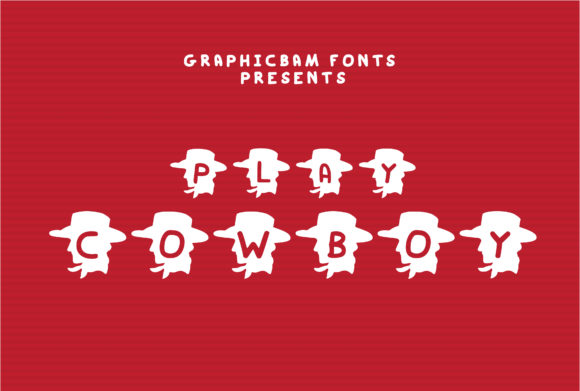
Introducing Play Cowboy Font - the most captivating and distinctive decorative font you'll ever encounter. Its unique design featuring a cowboy on each character adds a touch of wild west charm to any project, making it an instant favorite among designers.
Unleash your creativity and embark on an adventure with Play Cowboy Font. This remarkable font is not just a collection of letters and symbols; it's a gateway to a world of boundless imagination. Whether you're a seasoned graphic designer or just starting, Play Cowboy Font will ignite your passion and transport you to a realm of endless possibilities.
With Play Cowboy Font in your arsenal, you'll be able to craft designs that stand out from the herd. Its playful and charming style is perfect for creating logos, posters, social media graphics, invitations, and anything else you can imagine. Let your creativity roam free and watch as Play Cowboy Font transforms your ideas into captivating visual masterpieces.
Don't settle for ordinary fonts that blend into the background. Embrace the uniqueness of Play Cowboy Font and make a statement with every design. Its bold and captivating presence will command attention and leave a lasting impression on your audience.
So, saddle up and join the Play Cowboy Font revolution. Experience the thrill of creating designs that are as unique and unforgettable as the Wild West itself. With Play Cowboy Font, the possibilities are endless, and the adventure is just beginning.